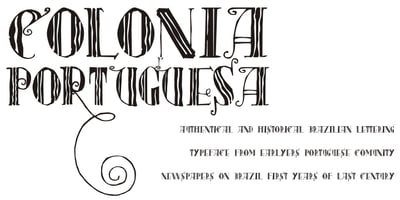
Colonia Portuguesa
Colonia Portuguesa font
Colonia Portuguesa Font Family was designed by Paulo W and published by Intellecta Design. Colonia Portuguesa contains 3 styles and family package options. Authentic and historical Brazilian lettering typeface from early Portuguese community newspapers on Brazil; first years of the 20th Century.